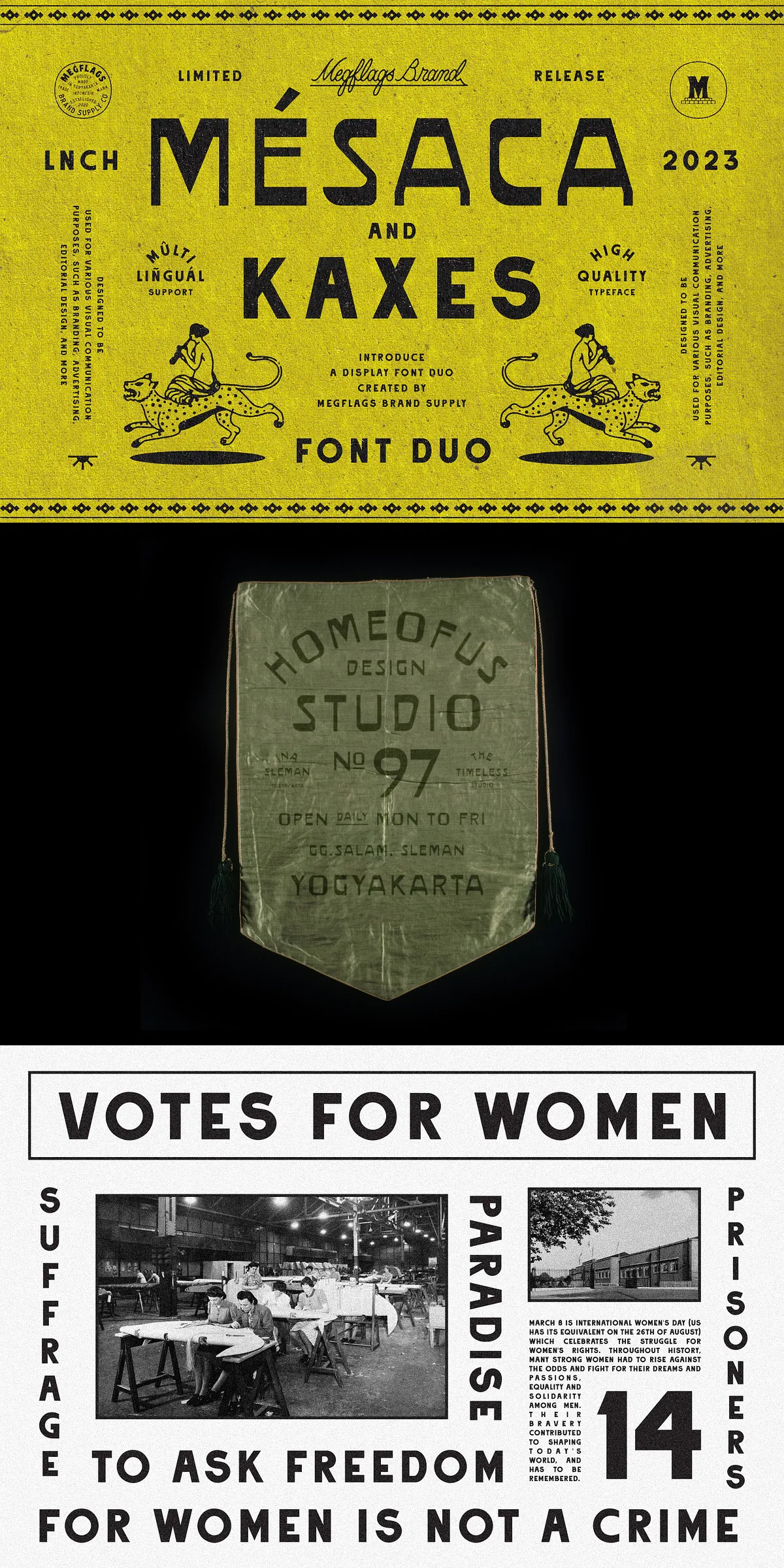
Introducing Mesaca and Kaxes, a font duo inspired by vintage western Mexico signage and storefronts. This dynamic duo combines classic typography with a rustic edge to create a truly unique design aesthetic.
Together, Mesaca and Kaxes create a perfect balance of strength and playfulness, making them ideal for branding, packaging, signage, and more. Use them together or separately to add a touch of vintage western Mexico flair to your projects.